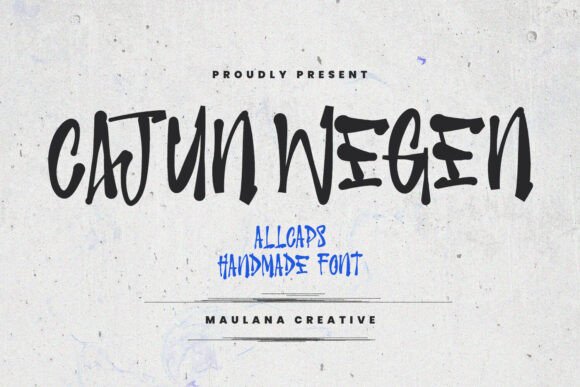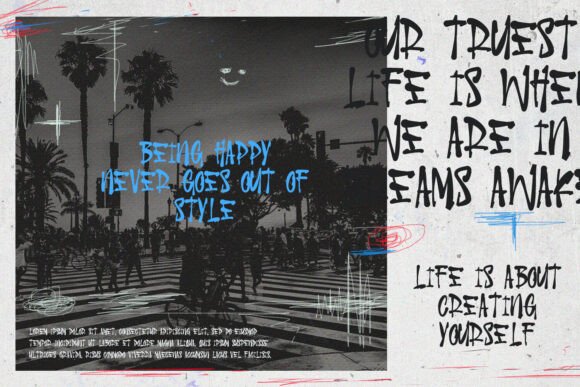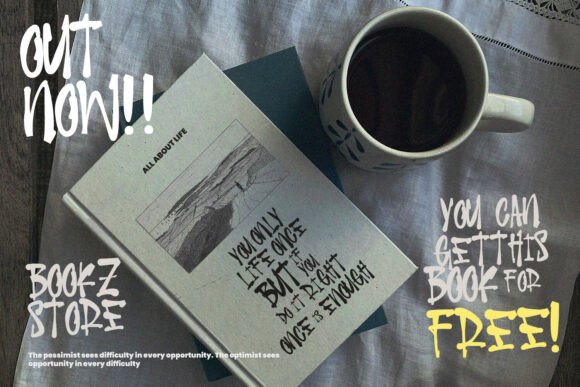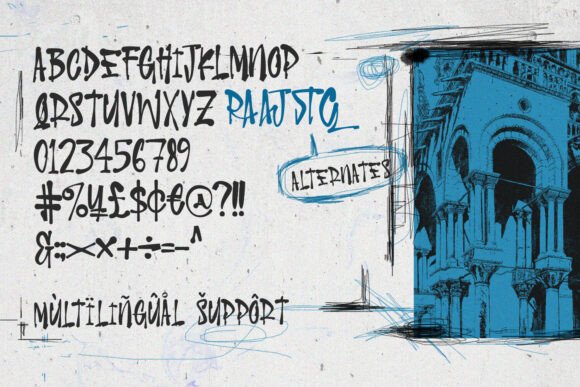
Cajun Wegen Font
About the Cajun Wegen Font
Discover the charm of Cajun Wegen Font. This font is a perfect blend of modern aesthetics and classic appeal. Cajun Wegen is a gritty, all-caps handmade font that brings attitude and raw energy to your work. With its expressive strokes and rebellious street-art vibe, this typeface is perfect for edgy branding, album covers, urban posters, skate apparel, and anything that needs a punch of personality.
Its strong, uppercase forms excel in headlines, short impactful phrases, and logo design. Avoid using Cajun Wegen for body text or lengthy paragraphs; its aggressive texture makes extended reading difficult. The font’s rebellious spirit works best for brands focused on streetwear, music, or anything expressing a raw, urban aesthetic.
Consider pairing Cajun Wegen with a clean sans-serif like Futura for contrast, or a more geometric typeface for a modern, high-impact feel. A playful script font could add a layer of unexpected personality, while a classic serif would create a sophisticated juxtaposition.
Cajun Wegen’s core personality is bold, rebellious, and energetic. It’s ideal for projects demanding attention and conveying a sense of raw, unapologetic style.
Cajun Wegen Font Usage Examples
Cajun Wegen Font Example